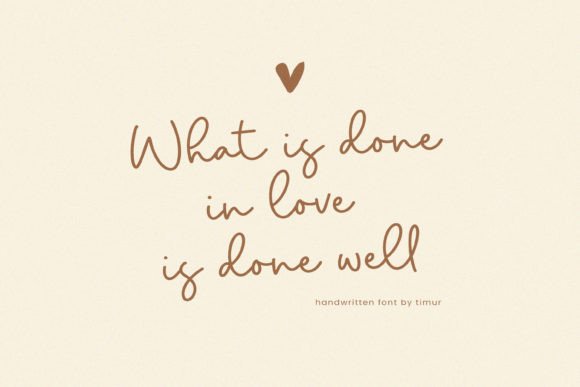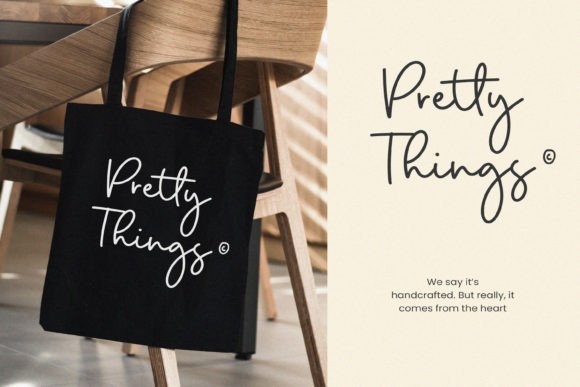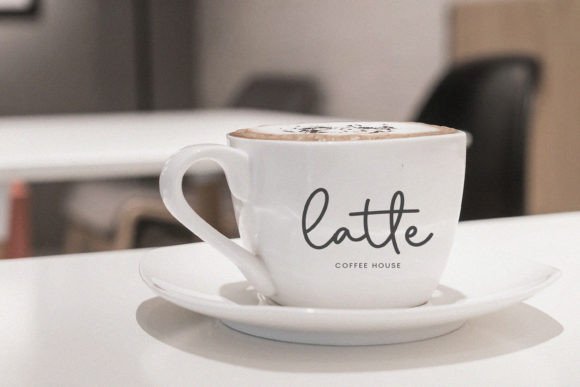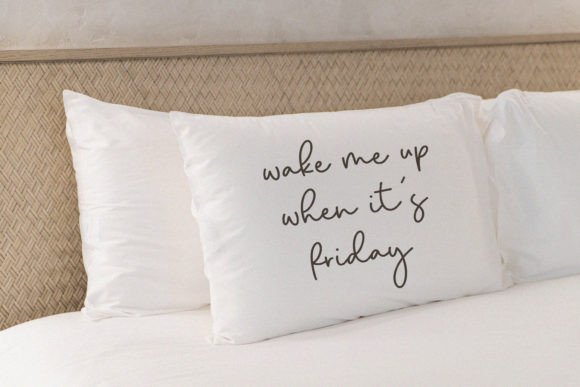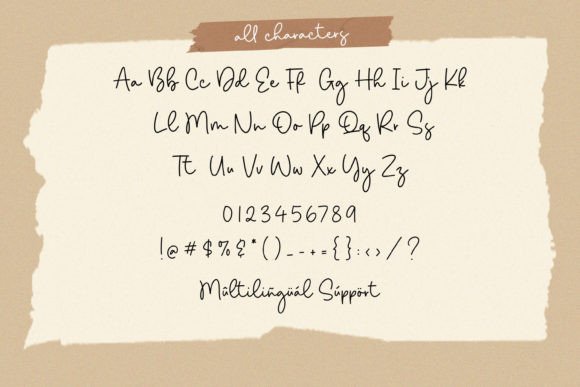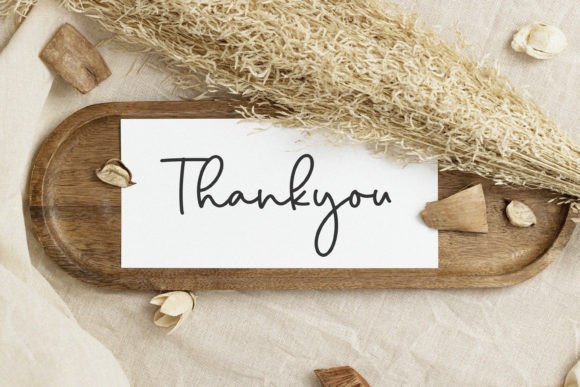
Introduction to Monstera Garden Font
Monstera Garden is a stylish and incredibly elegant script font.
It looks stunning on wedding invitations, thank you cards, quotes, greeting cards, logos, business cards, and every other design which needs a handwritten touch .